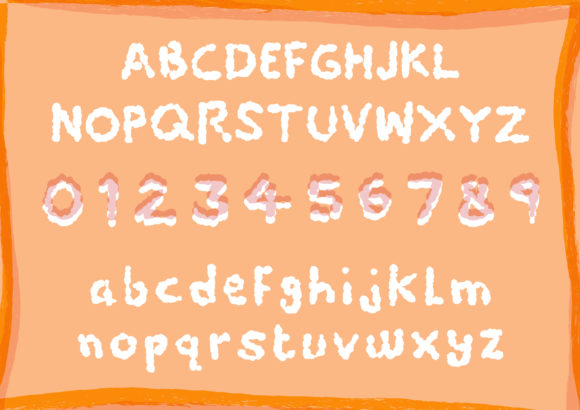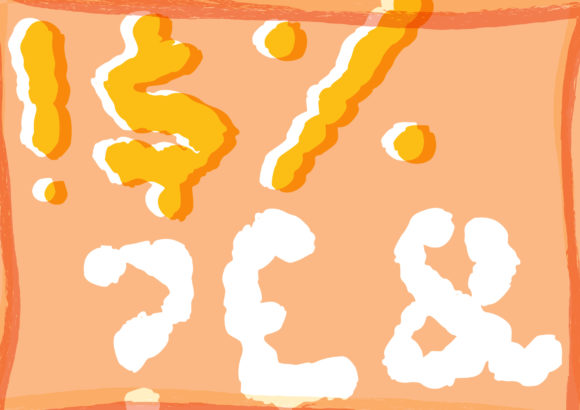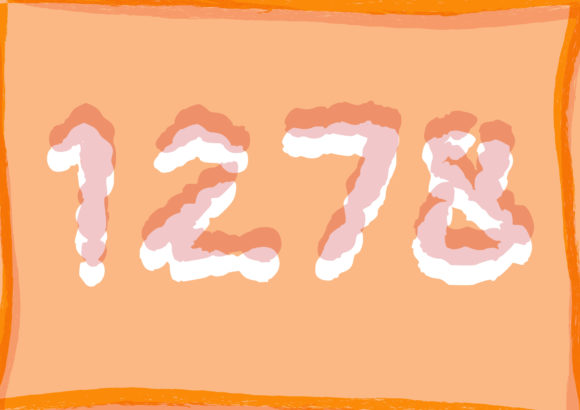
The Burnt Paper Font: A Quirky Display Font for Creative Projects
I’ll never forget the time I was working on a branding project for a crafty client, and I just couldn’t find the right font to match her fun and playful vibe. I scoured the internet, tried out dozens of fonts, but nothing seemed quite right. That was until I stumbled upon the Burnt Paper font. It was love at first sight! 😍 With its unique, burnt paper texture and clean lines, it was the perfect fit for my client’s project. In this article, I’ll share my experience with the Burnt Paper font, its features, and how to use it in various design platforms.
An Honest Review of Burnt Paper Font
What I Love About Burnt Paper Font
- ✨ Unique and quirky design that adds a touch of personality to any project
- ✅ Clean lines and simple shapes make it easy to read and versatile
- 🎨 Perfect for display text, logos, and branding projects
- 🤝 Works well with both digital and print projects
While I absolutely love the Burnt Paper font, there are a few quirks to be aware of:
- ⚠️ The font can be a bit tricky to use at smaller sizes, as the burnt paper texture can become too distorted
- 🤔 Some of the glyphs and special characters can be a bit inconsistent in terms of style
The Story Behind Burnt Paper Font
The Burnt Paper font was designed by a creative team who wanted to create a unique and quirky display font that would add a touch of personality to any project. Inspired by the texture of burnt paper, the team experimented with different shapes and lines to create a clean and simple font that’s perfect for logos, branding, and crafty DIY projects.
Q: What is the Burnt Paper font best used for?
A: The Burnt Paper font is best used for display text, logos, branding projects, and crafty DIY projects.
Q: Is the Burnt Paper font available in different weights or styles?
A: Yes, the Burnt Paper font comes in different weights and styles, including regular, bold, and italic.